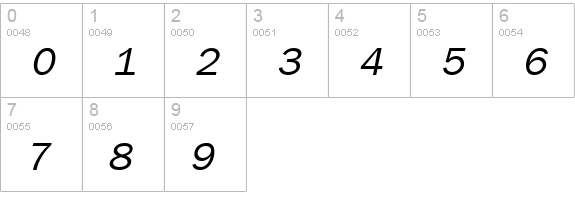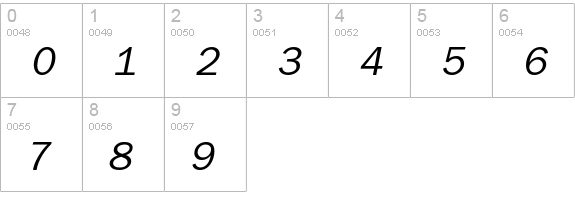
FrankfurtGothic Italic Font Details
FrankfurtGothic Italic is a distinctive, italic variant in the FrankfurtGothic typeface family \xE2\x80\x94 well suited to design and typography projects.
FrankfurtGothic Italic font exudes a sense of modern elegance with its sleek and sophisticated design. This stylish typeface features a unique twist on traditional Gothic letterforms, adding a touch of flair to any project. The slanted italic style brings a dynamic energy to the text, making it perfect for adding a touch of drama to your designs. One of the best features of FrankfurtGothic Italic font is that it is available for free download at FontsMarket.com. This means that you can easily access this stunning font without any cost, making it a valuable addition to your font library. Whether you are working on a branding project, website design, or any other creative endeavor, FrankfurtGothic Italic font is sure to make a bold statement and elevate your work to the next level. Don't miss out on the opportunity to enhance your designs with this striking and versatile font. Download FrankfurtGothic Italic for free today and unleash your creativity!